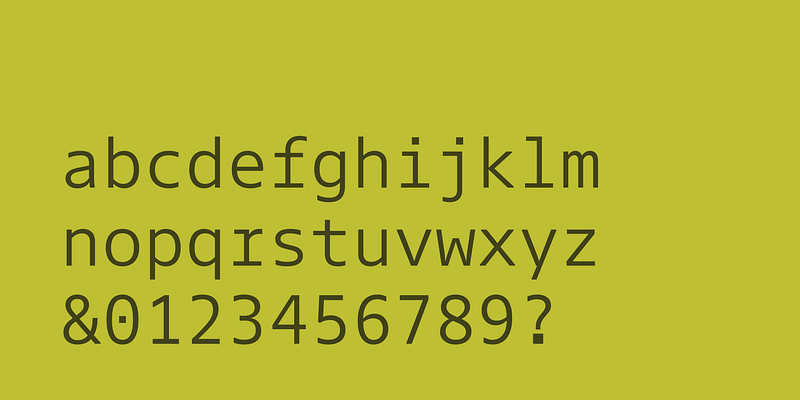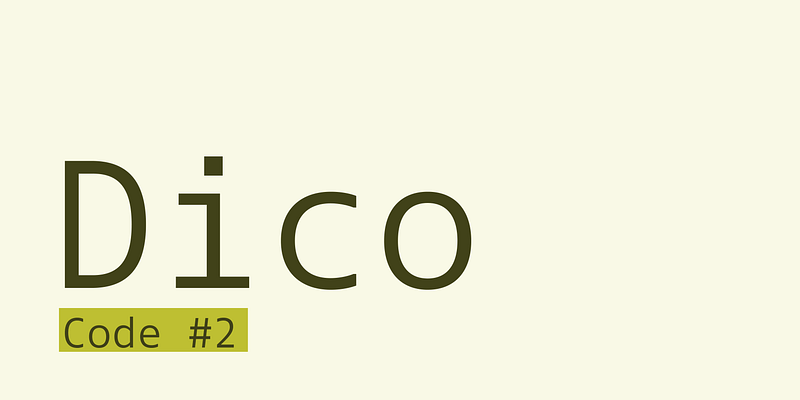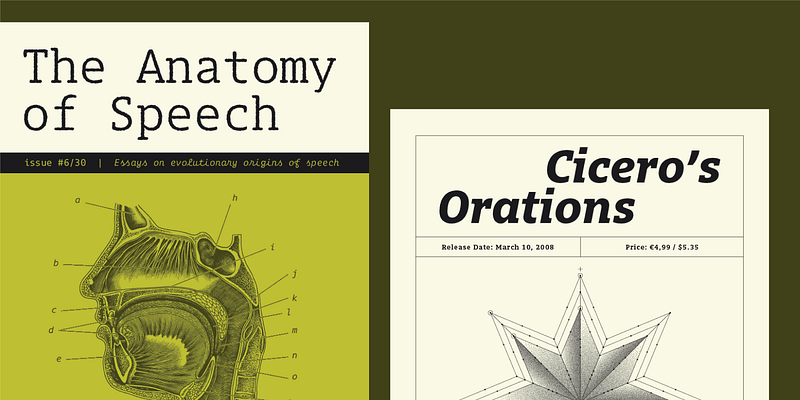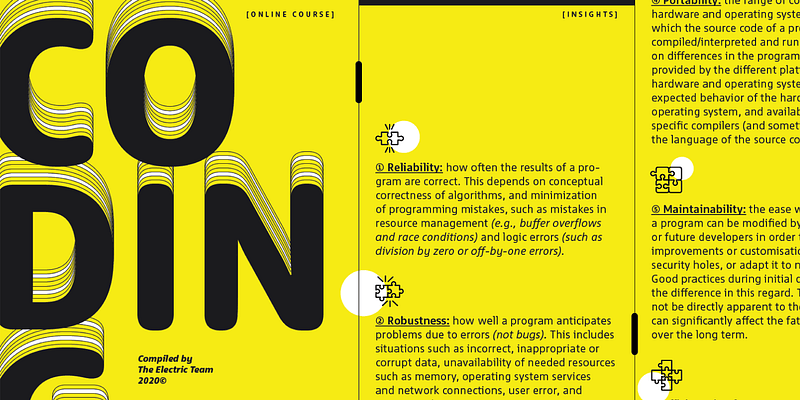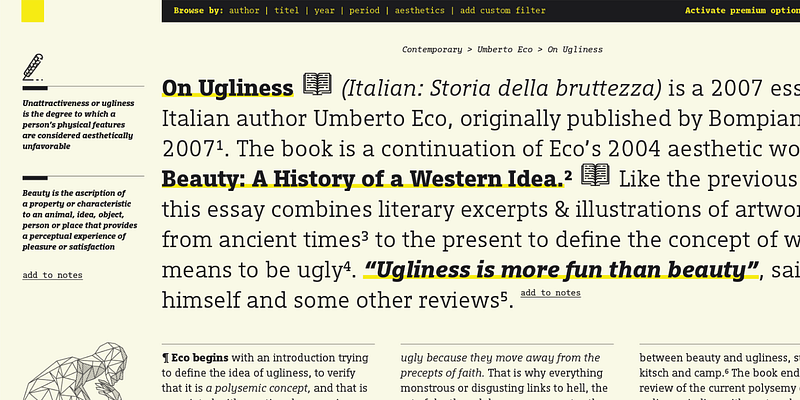
The basic structure and feel of Dico (Latin for “I speak, I talk, I give a speech”) is shaped by compact proportions and open, yet restrained letterforms that gain in friendliness and warmth when accompanied by their more swinging italics. Monospaced script styles – loosely based on Corinthian Script for the IBM Selectric – can bring things into an even more delightful direction. The weight range may seem small compared to other large type families but Dico more than makes up for that with other matching variations on the theme. Next to the Sans you can choose from a Slab-serif, the rounded Dico Soft, monospaced Sans and Slab, two Code variants, and Dico Typewriter containing “rough” versions of Dico Mono Sans, Mono Slab and Mono Script. 45 fonts in total.